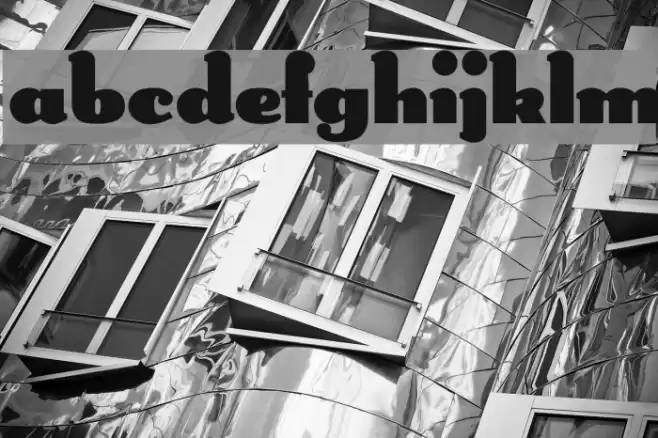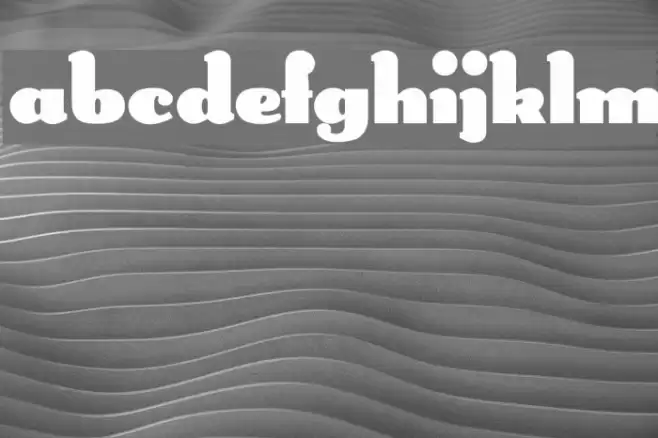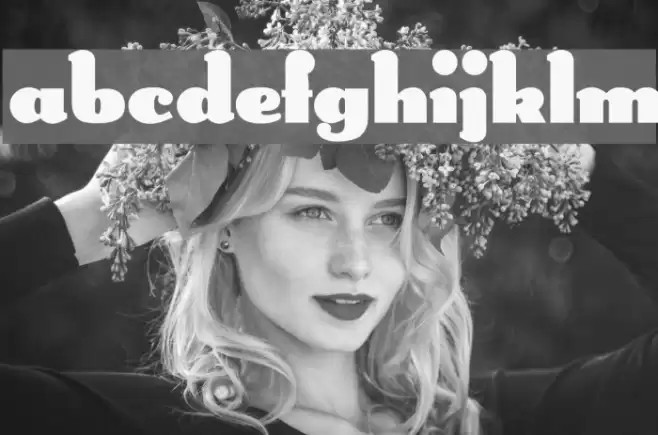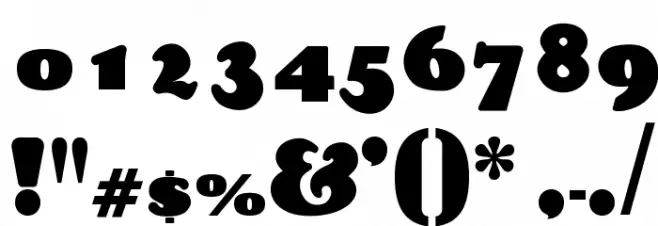
OPTIBeaver Font
OPTIBeaver Description
This font features bold, rounded characters with a playful and robust appearance. The letters are thick and have a strong presence, making them ideal for attention-grabbing designs. The rounded edges and uniform stroke width give it a friendly and approachable feel. The numerals and special characters maintain the same boldness and rounded style, ensuring consistency across all text elements. This font is particularly suitable for projects that require a fun and engaging look.
A bold, rounded font with a playful and robust style from Uncategorized fonts.
- Proposed Projects: Ideal for children's books, playful branding, posters, and headlines that need a strong visual impact.
- Overall Style: Playful